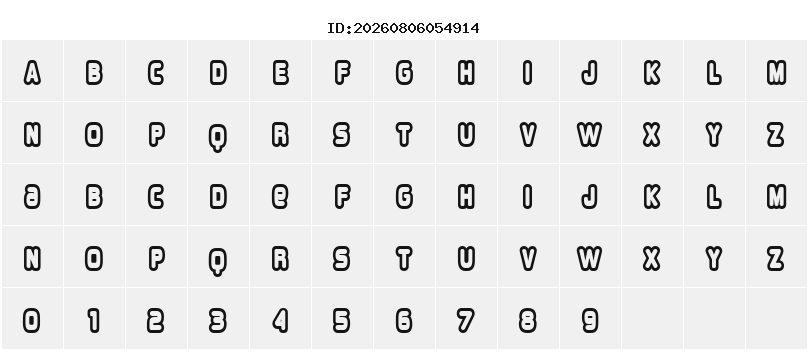
Overload Burn Preview
• Font Name: Overload Burn
• Font ID: RayLarabie: Overload Burn: 1998
• Full Font Name: Overload Burn
• Designer: Ray Larabie
• Manufacturer: Ray Larabie
About Overload Burn.ttf
Overload Burn.ttf is a modern, elegant sans-serif font designed for ultimate readability and visual harmony. Perfect for branding, headlines, web design, and print materials.